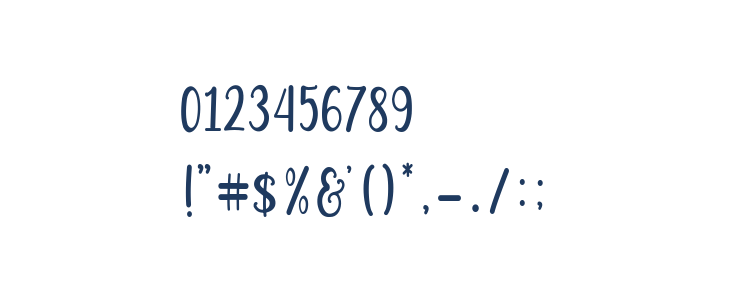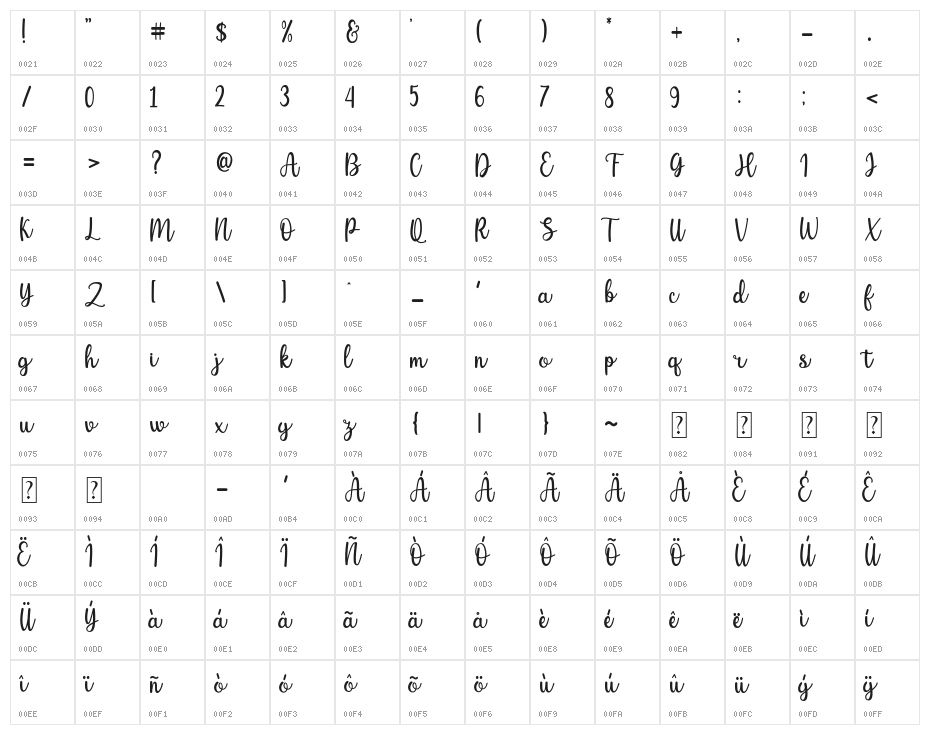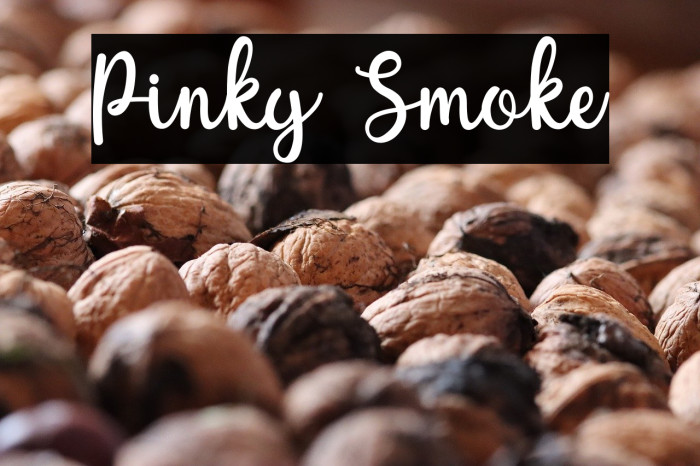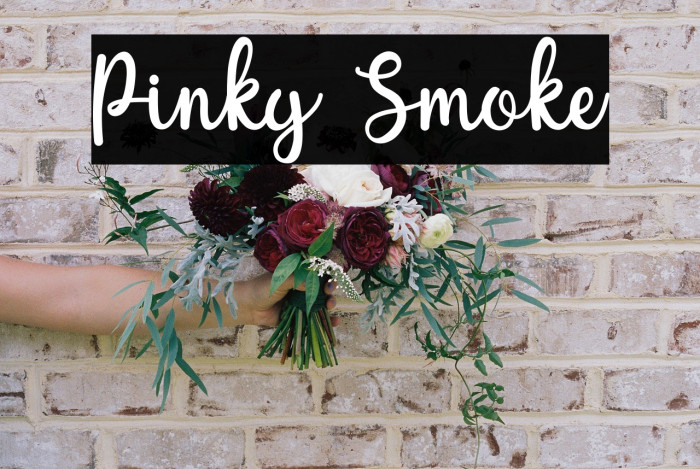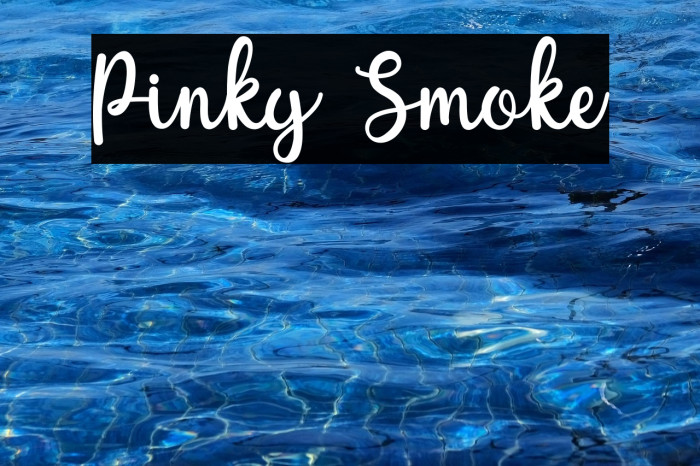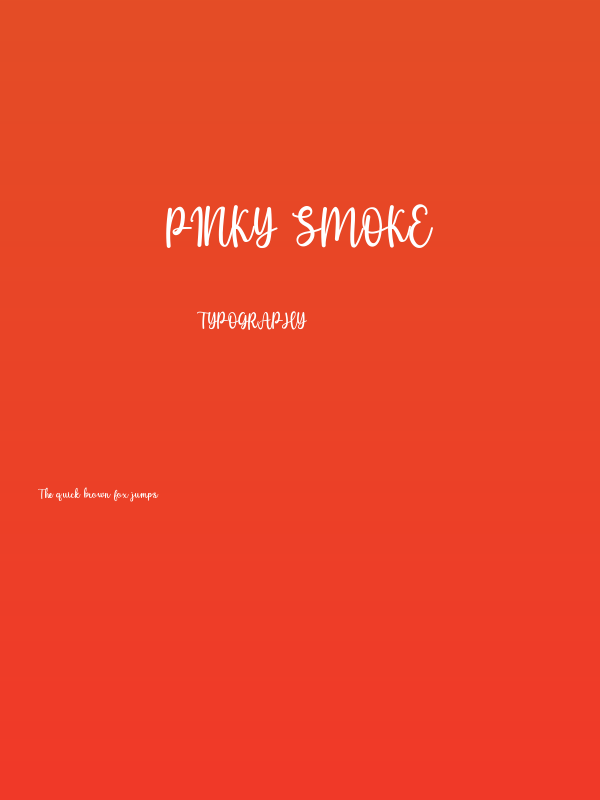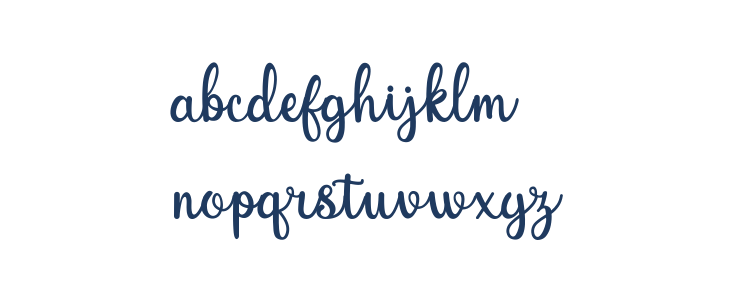
Pinky Smoke Font
Pinky Smoke Description
This font features a playful and flowing script style, characterized by its smooth, cursive strokes and elegant curves. The uppercase letters are bold and expressive, while the lowercase letters maintain a consistent flow, enhancing readability. The numerals and special characters are designed to complement the overall aesthetic, making it versatile for various design needs. Its handwritten appearance adds a personal touch, making it suitable for creative projects that require a friendly and approachable feel.
| Proposed Projects | Ideal for wedding invitations, greeting cards, branding projects, and social media graphics. |